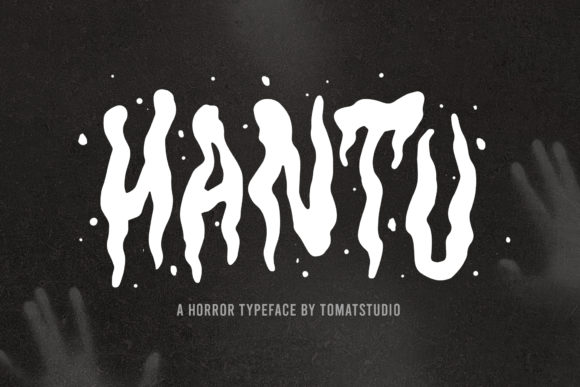
Unleash the Bewitching Charm of Hantu Font: A Journey into the Realm of Enigmatic Typography
Embark on an extraordinary typographic adventure with Hantu Font, a captivating display font crafted by the visionary minds at Tomatstudio. Hantu, meaning "ghost" in Indonesian, is a spellbinding font that weaves a web of mystery and allure around your designs, conjuring an aura of the supernatural with every stroke.
Immerse yourself in the world of Hantu, where ethereal glyphs dance and twirl, evoking a symphony of spine-tingling emotions. Let your imagination soar as you witness the transformation of ordinary words into mesmerizing apparitions, casting an enchanting spell on your audience.
With Hantu Font at your fingertips, you possess the power to conjure typographic masterpieces that haunt the memory long after they are beheld. Unleash your creativity and witness the remarkable metamorphosis of your designs as they transcend the ordinary and embrace the realm of the extraordinary.